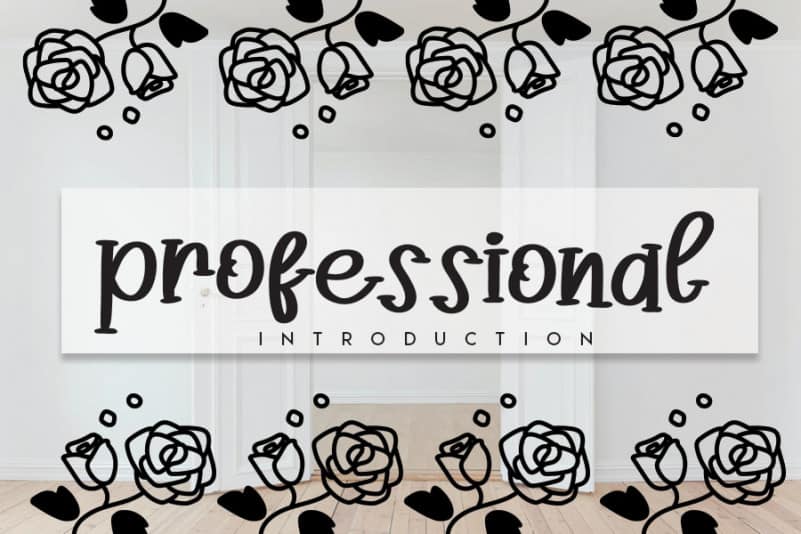
Hummingwork Script Font
Hummingwork Script Font is a simple and neat lettered handwritten font. It fits both formal and non-formal designs, so add it to your most creative ideas and notice how this font makes them stand out!
The latest style letters are perfect for wall displays, wedding invitations, social media post logos, advertisements, product packaging, product designs, labels, photography, watermarks, invitations, stationery, and any project that requires taste handwriting.